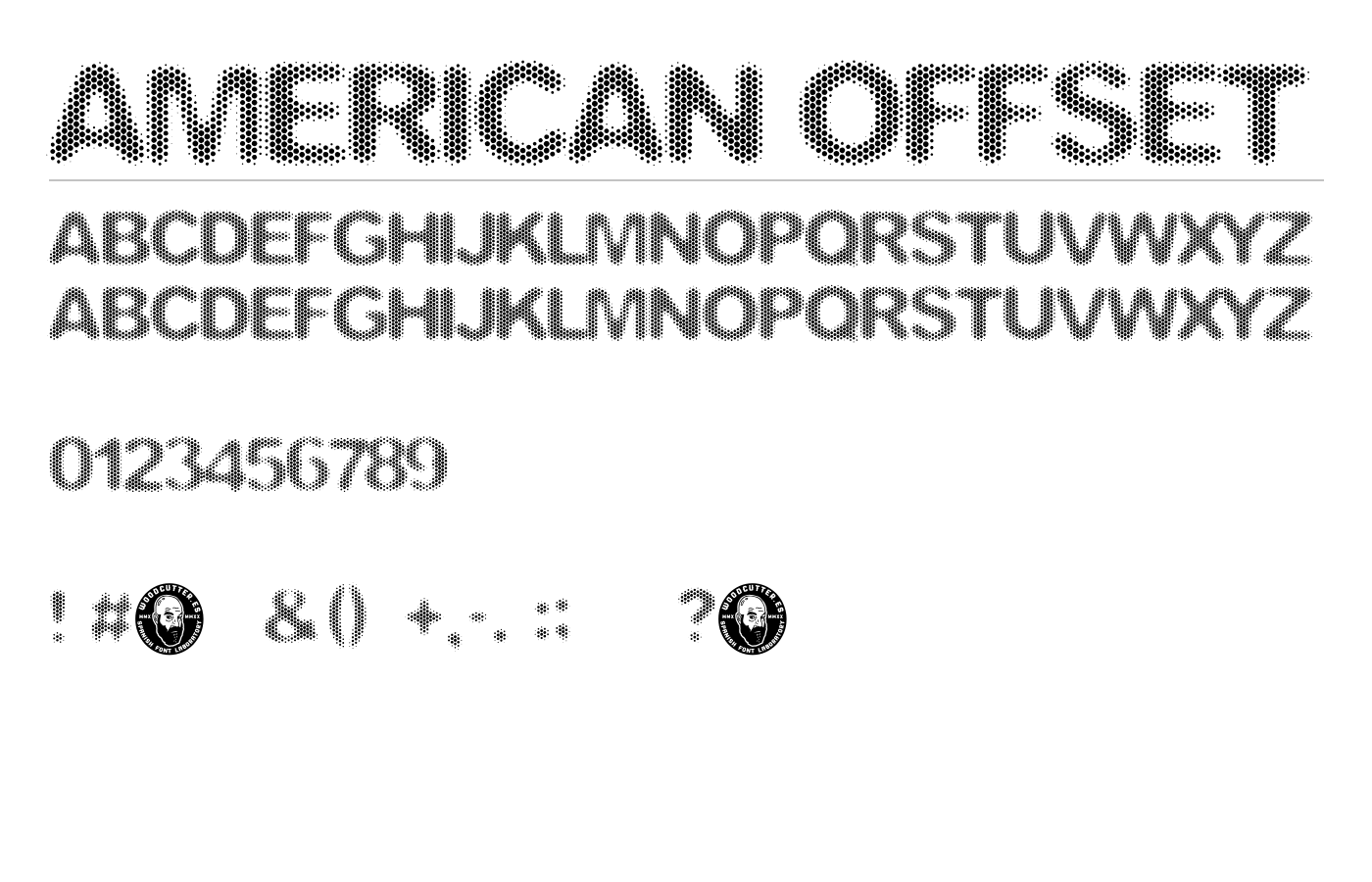
American Offset is a distinctive sans serif display font featuring a dot matrix texture that gives it a bold, retro, and industrial feel. Its medium weight and condensed width, combined with rounded letterforms and an evenly spaced layout, make it highly legible and visually striking, perfect for attention-grabbing headlines and creative branding. This font works well in modern designs seeking a vintage or tech-inspired vibe, ideal for posters, logos, and packaging with a unique, textured twist.
American Offset Font
About American Offset Font